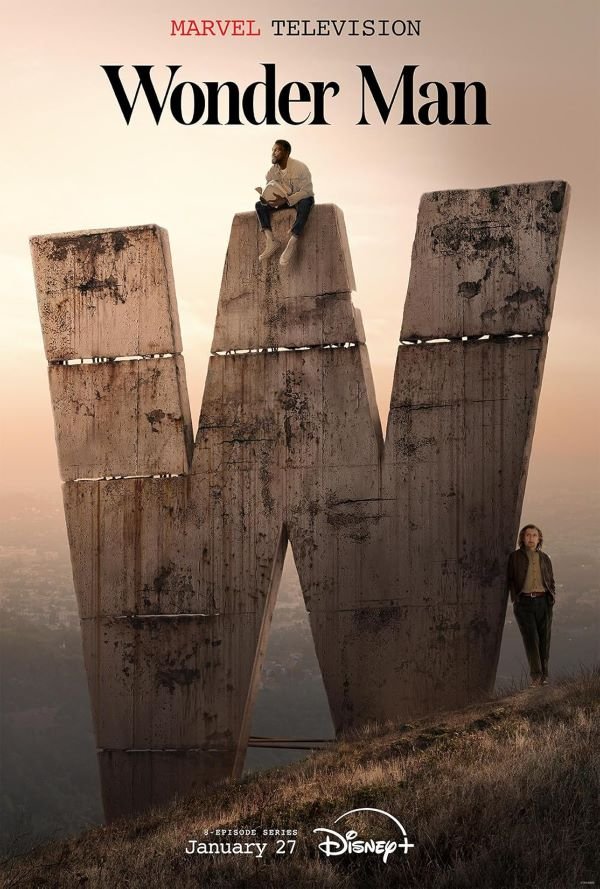
Wonder Man Font is Lust Pro Slim No. 4 — a high-contrast modern serif with elegant curves, thin hairlines, and dramatic vertical strokes giving the Marvel Studios title its stylish, cinematic, and premium look. A free alternative closely matching its sleek high-fashion serif style is available for fan designs and non-commercial projects.